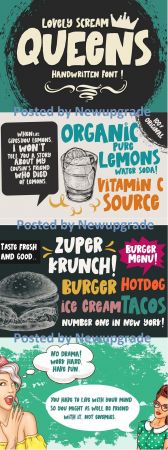
Lovely Scream Queens is a hand brush font made with brushes and ink. This typeface is ideal for use in thick watercolor designs or handwriting styles, such as blog titles, posters, wedding elements, t-shirts, clothing, book covers, business cards, greeting cards, branding, merchandise etc.
Contains full set:
- Uppercase
- Lowercase
- alternative n, b, w , i, l, e.
- fastener
- Punctuation
- number
- multilingual support.
And also Lovely Scream Queens Italic, works in harmony with Lovely Scream Queens to create exceptional typographic creations. Get inspiration from the preview above.